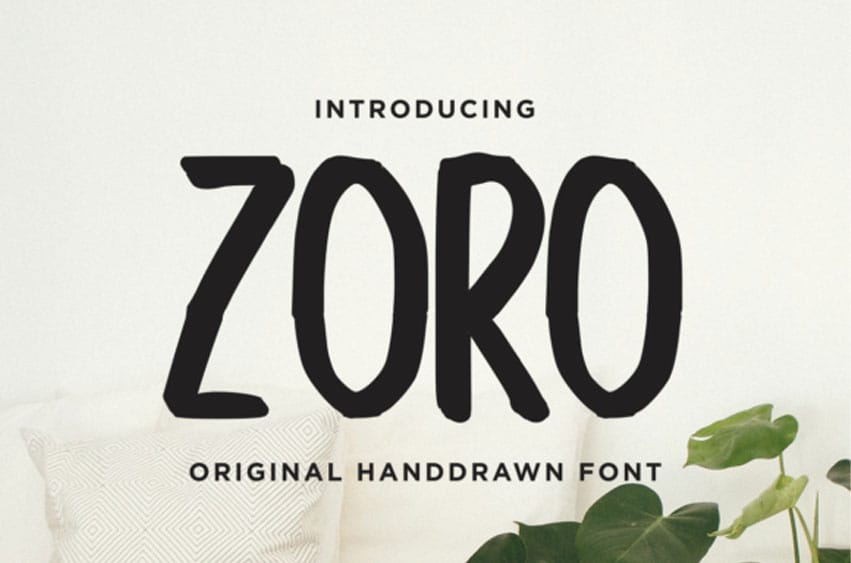
Zoro Font is a simple and sharp-looking sans serif font that will truly inspire your work.
Use this font for your designs and explore its endless possibilities.
Zoro Font is a simple and sharp-looking sans serif font that will truly inspire your work.
Use this font for your designs and explore its endless possibilities.